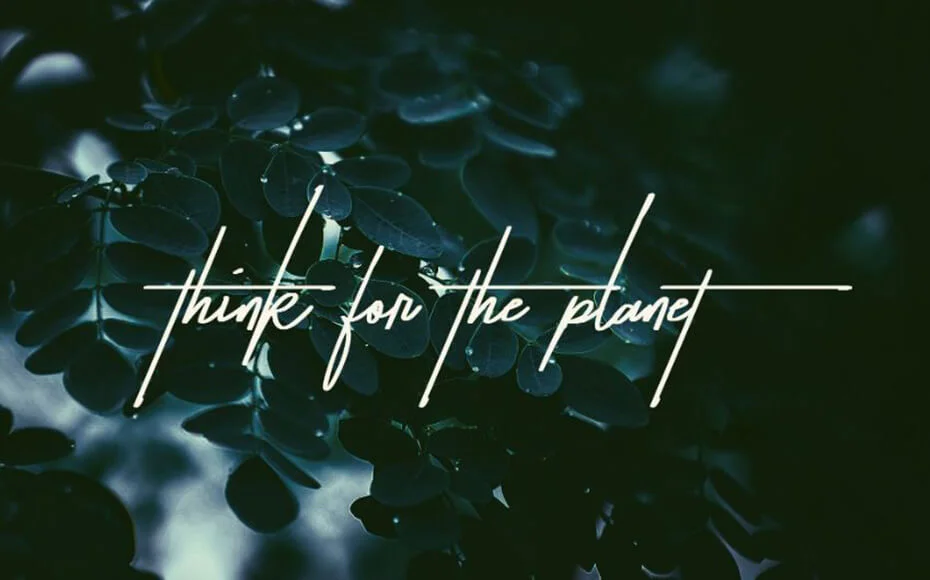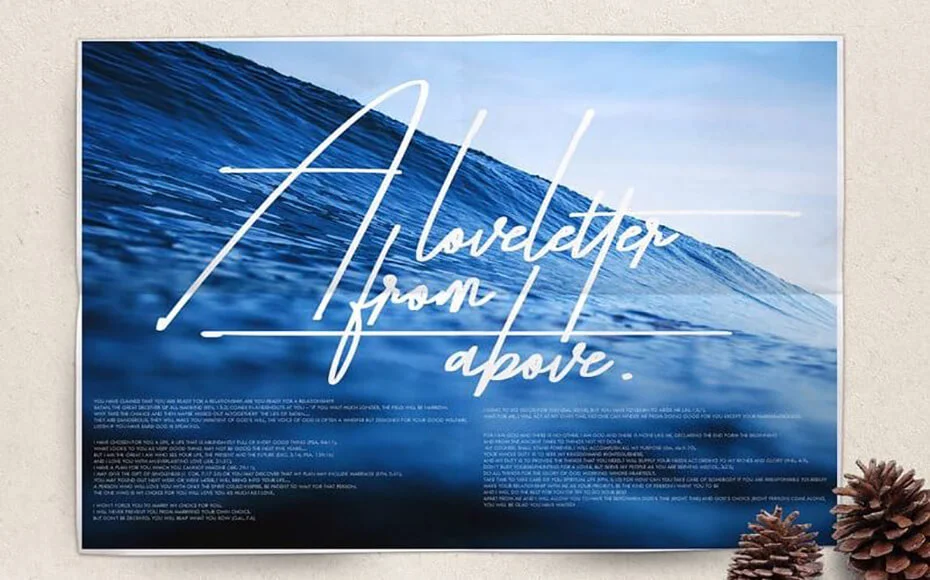
Today we are pleased to introduce a new font family called Taken by Vultures font, a one-of-a-kind offering for a handwritten look with a strong connection to photography.
A reputed organization The Branded Quotes has charged for each and everything like creation, publication, and organization.
The most unique-looking glyph blends. This typeface can serve as your new signature text or as a solid cover for your presentations.
It gives you uppercase, lowercase, punctuation, numbers, a ligature, and font alternatives. Don’t forget to use the swashes found on some of its symbols!
Font Name:Taken By Vultures Font
Style:Script, Handwritten, Signature
Font Designer: Branded Quotes
It has perfect handwritten styles that look great and an amazingly good-looking texture that looks great for all your work.
You can use it for multiple tasks. Like attractive logos, brochure layouts, book covers, posters, banner ads, birthday cards, fashion industry, invitation and wedding card text, photography, branding, signs, signature, business cards, flyers, printing on the clothing industry, and much more.
This amazing font family has come in two styles including Vultures Regular and Vultures Alternates. Both fonts have almost 200 characters like uppercase, lowercase, marks, numbers, awesome ligatures, and alternates.
Afrikaans Albanian Catalan Danish Dutch English Estonian Finnish French German Icelandic Italian Norwegian Portuguese Spanish Swedish Zulu